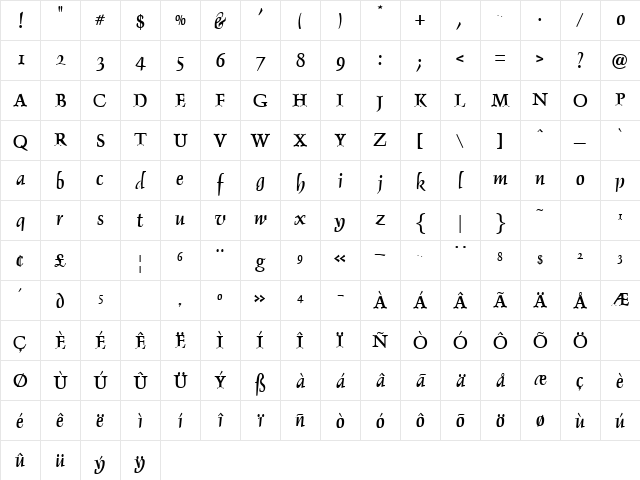
Complete OPDelphin-TWO TWO glyph index. Displaying only characters natively supported by OPDelphin-TWO TWO font.
OPDelphin-TWO is a composed and adaptable typeface that performs quietly and consistently across a wide range of design contexts.